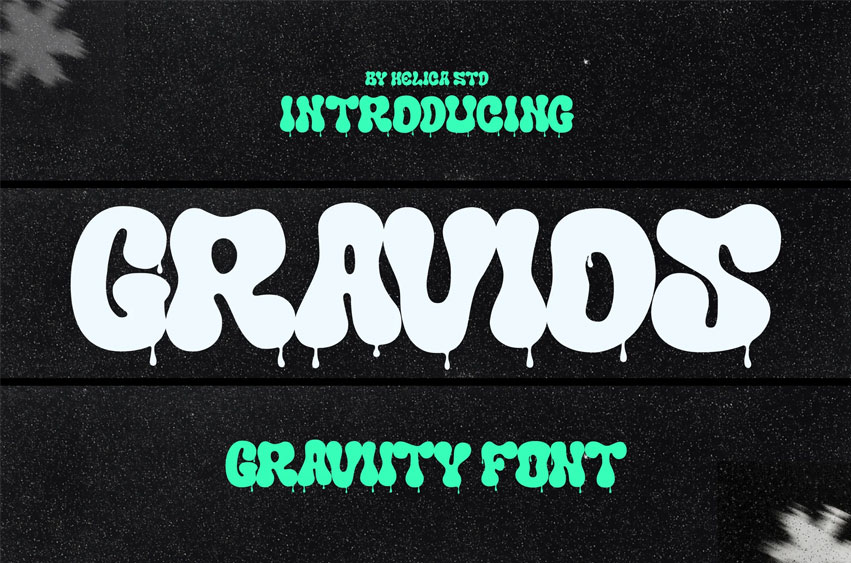
Gravios Font
Gravios Font Graffiti Decorative Font is a bold, bubbly display font that captures the fun and surreal effect of gravity-defying forms. With a fluid, inflated appearance and dripping elements, Gravios is perfect for playful, experimental, and eye-catching projects. It brings motion, volume, and a spark of imagination into your creative concepts.
Main Features:
• Alternates